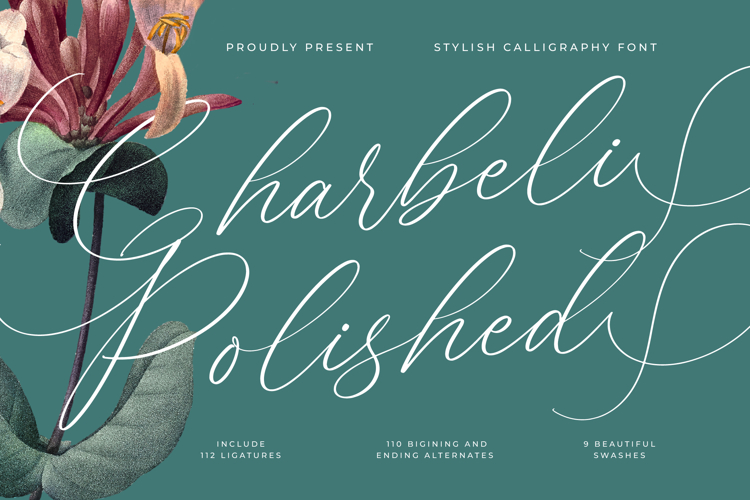
Charbeli Polished - Stylish Calligraphy Font
Charbeli Polished is a stylish calligraphy font designed with graceful elegance and artistic flow. Each stroke is crafted with precision to emulate refined handwritten calligraphy, offering a balance between sophistication and expressive beauty. Its elongated curves, fluid ligatures, and ornamental alternates give it a luxurious presence, making it perfect for high-end and romantic design projects.
Charbeli Polished thrives in editorial and publishing. Whether used in magazine covers, book titles, invitations, or fashion spreads, the font delivers striking visual impact while retaining clarity. Its stylish forms elevate editorial layouts that demand sophistication, romance, and visual refinement.
In the digital space, this typeface is an excellent tool for web typography. From portfolios, websites, and blogs to social media campaigns, it adds elegance and artistry, ensuring that digital media projects communicate beauty and personality. It is particularly effective for designers and creators who wish to maintain a polished, luxury aesthetic across platforms.